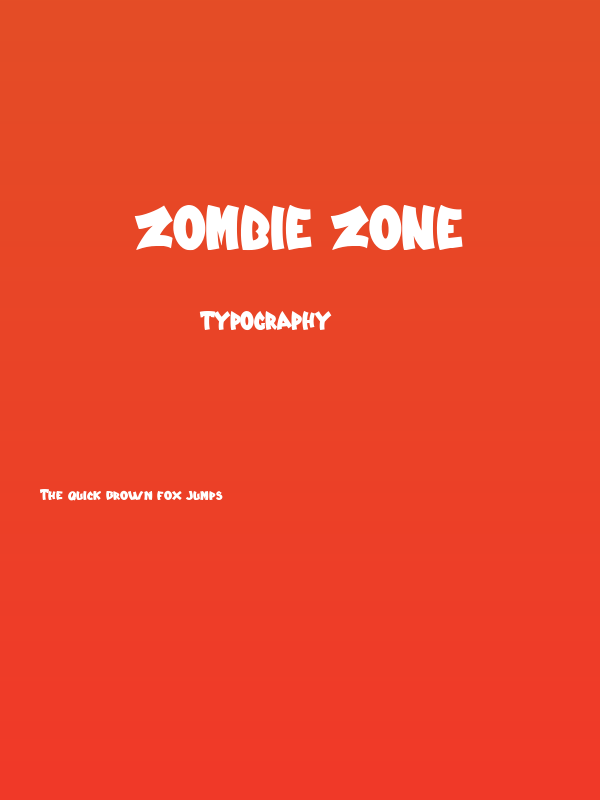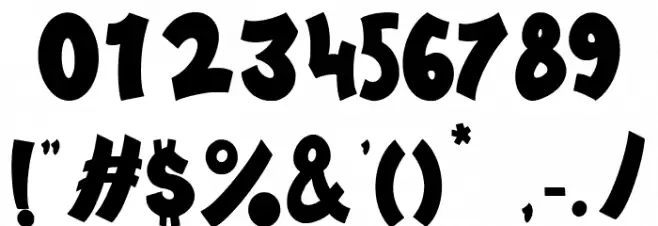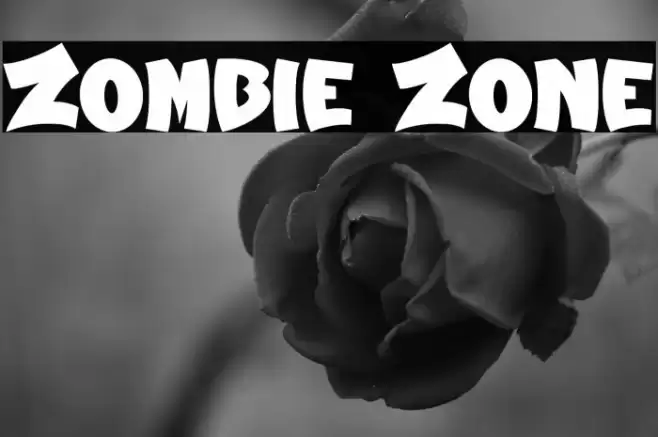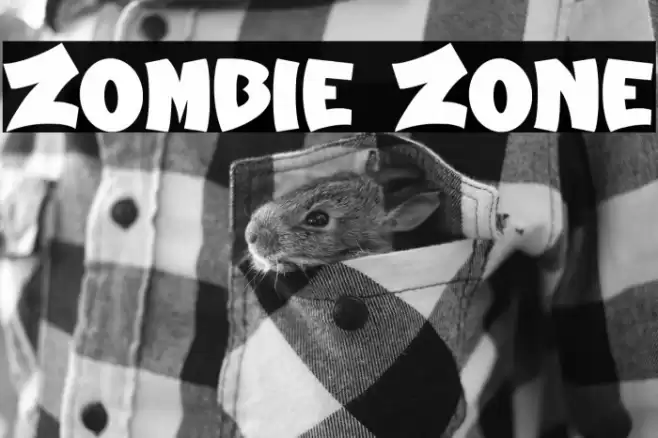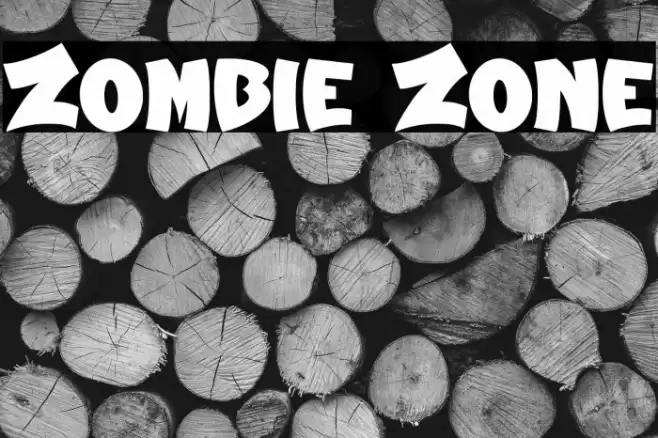
Zombie Zone Font
Zombie Zone Description
This font features a bold and playful style with exaggerated curves and a slightly uneven baseline, giving it a lively and dynamic appearance. The characters are thick and robust, with a cartoonish flair that adds a sense of fun and whimsy. The uppercase and lowercase letters maintain a consistent style, with rounded edges and a slightly irregular shape that enhances the font's quirky personality. The numbers and special characters are equally bold and expressive, making them stand out prominently. This font's unique design makes it ideal for projects that require a touch of humor and creativity.
| Overall Style | Playful, Cartoonish |
| Use Case | Headlines, Posters, Logos |
| Proposed Projects | Ideal for children's books, comic strips, playful branding, and Halloween-themed designs. |